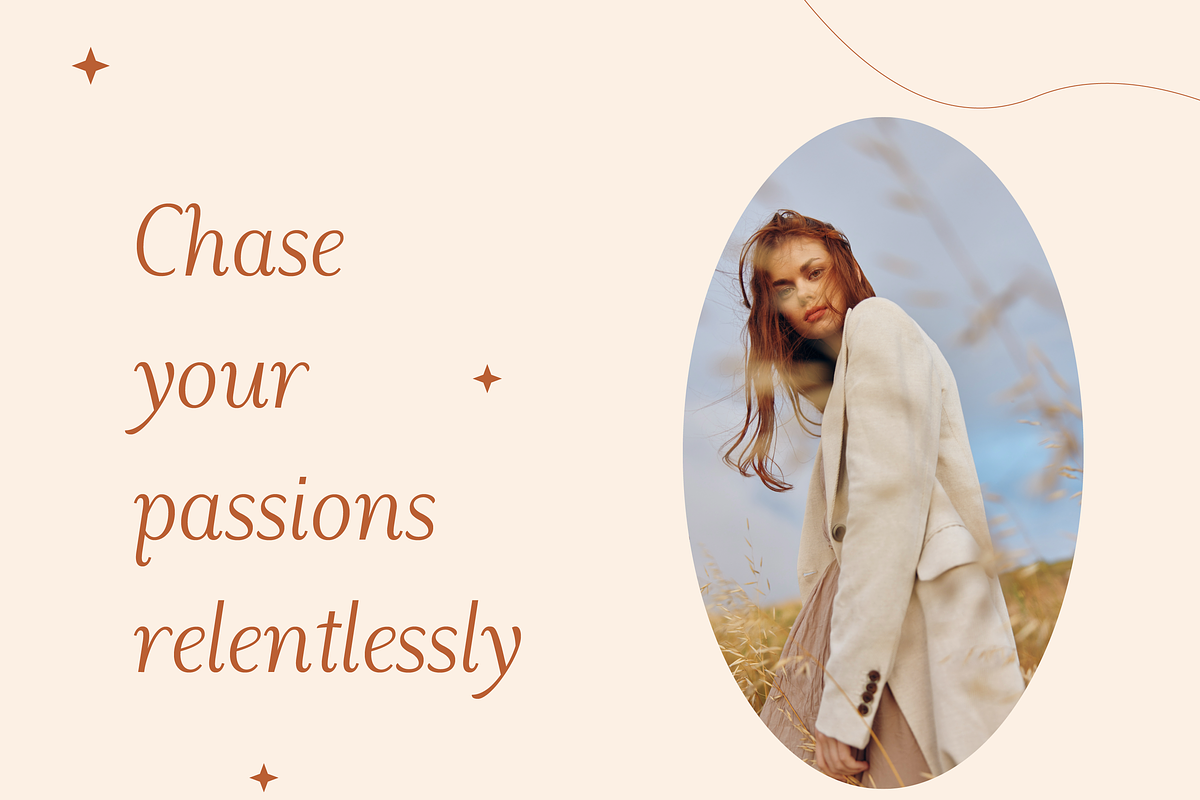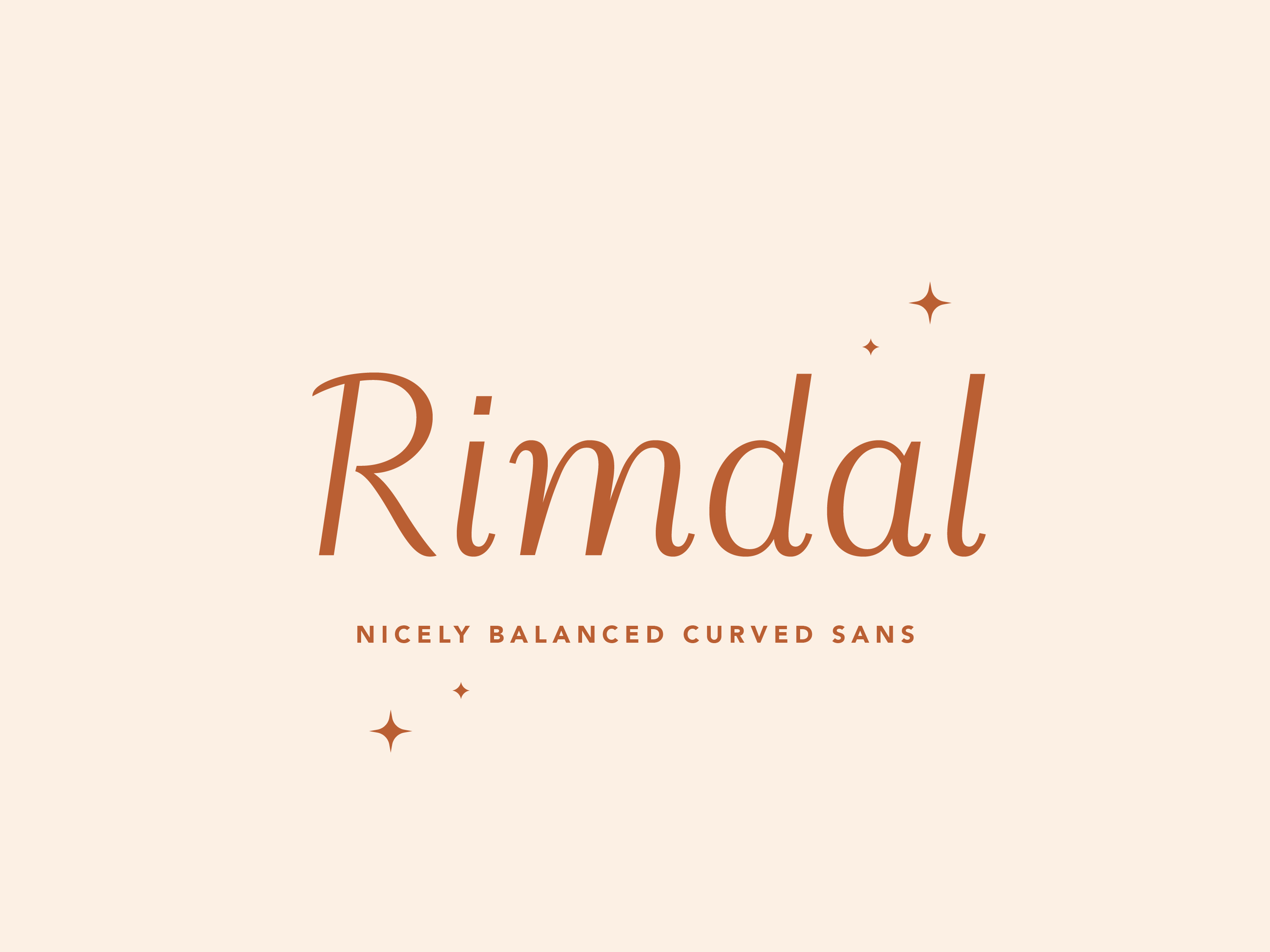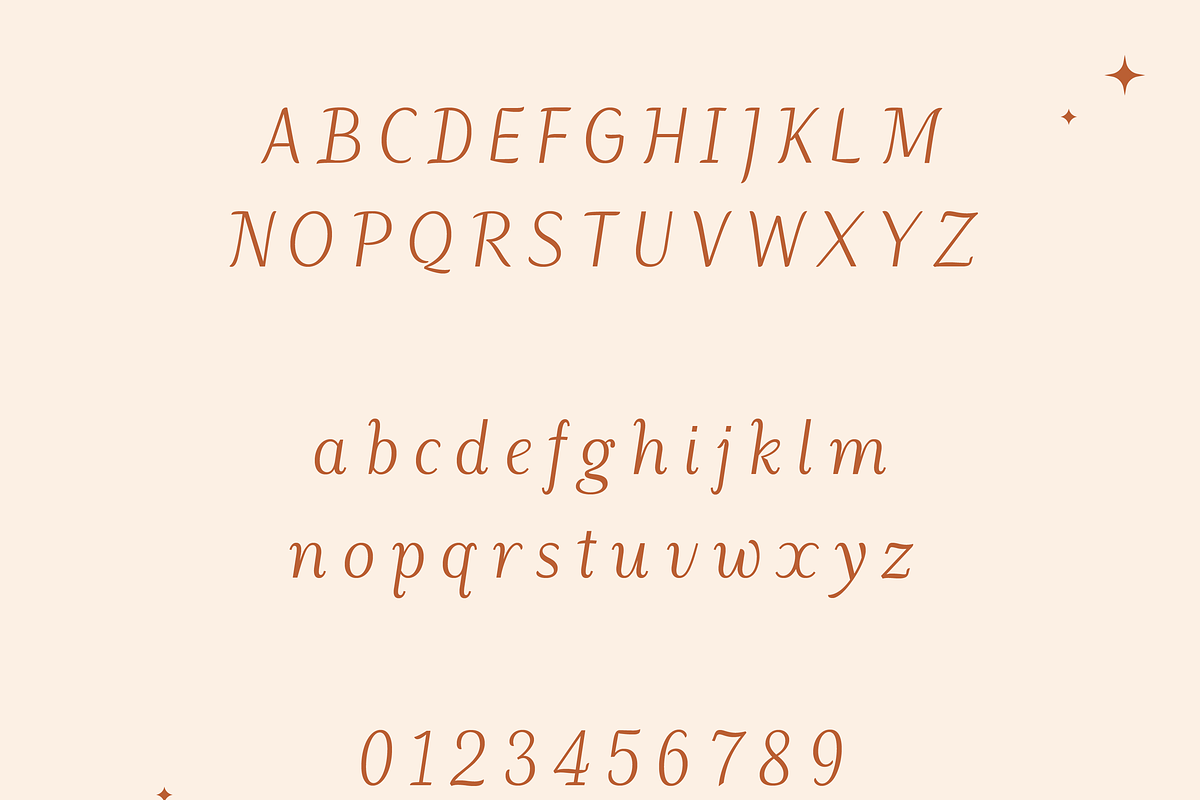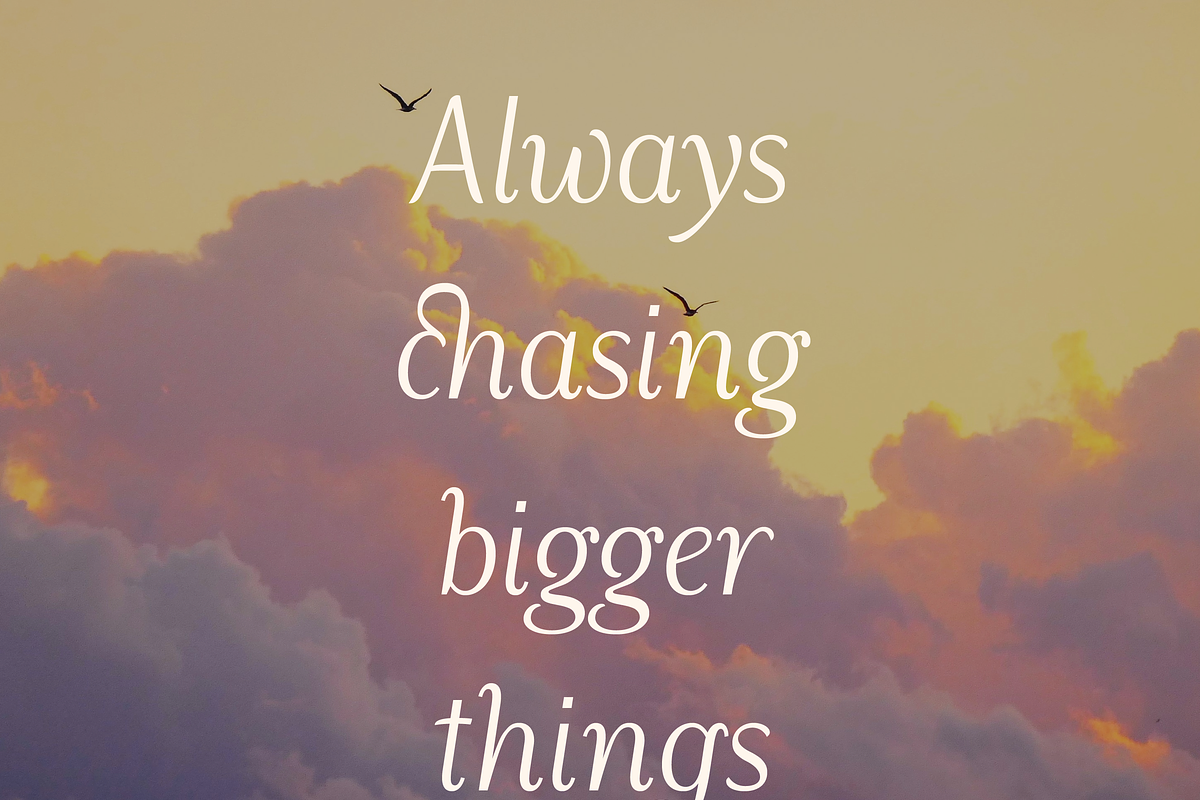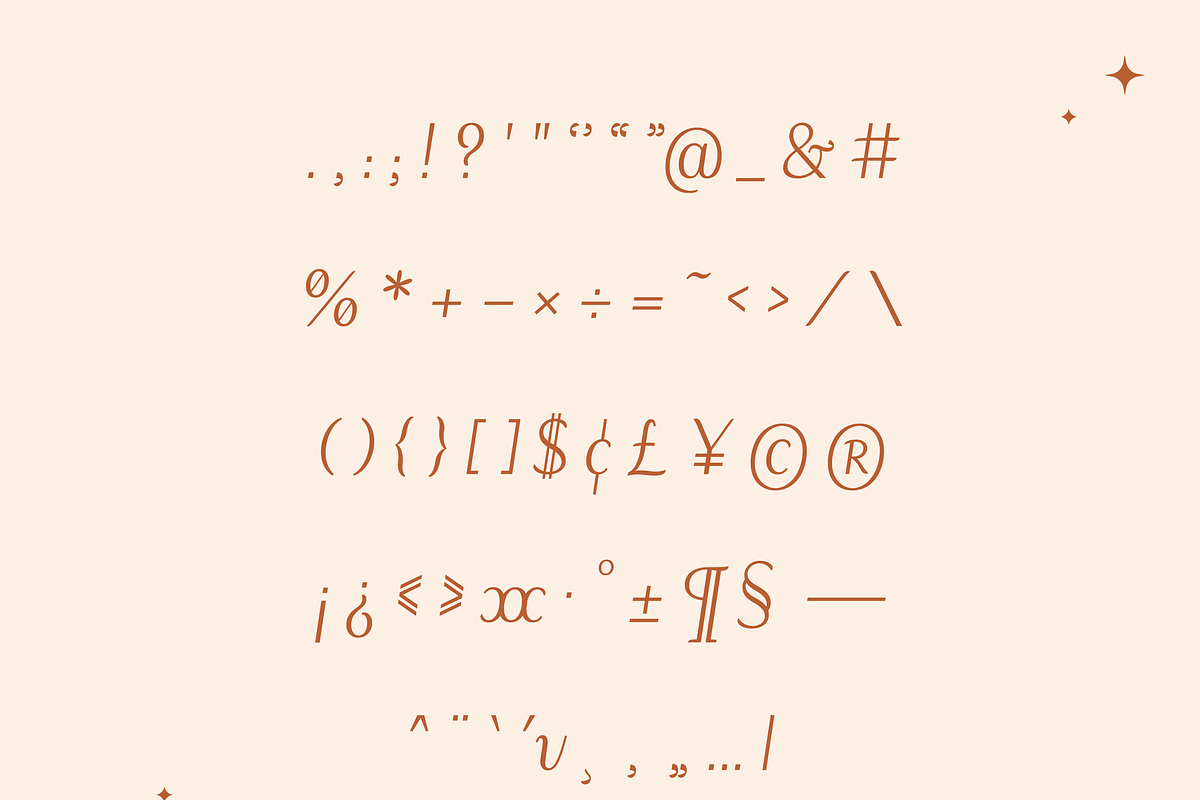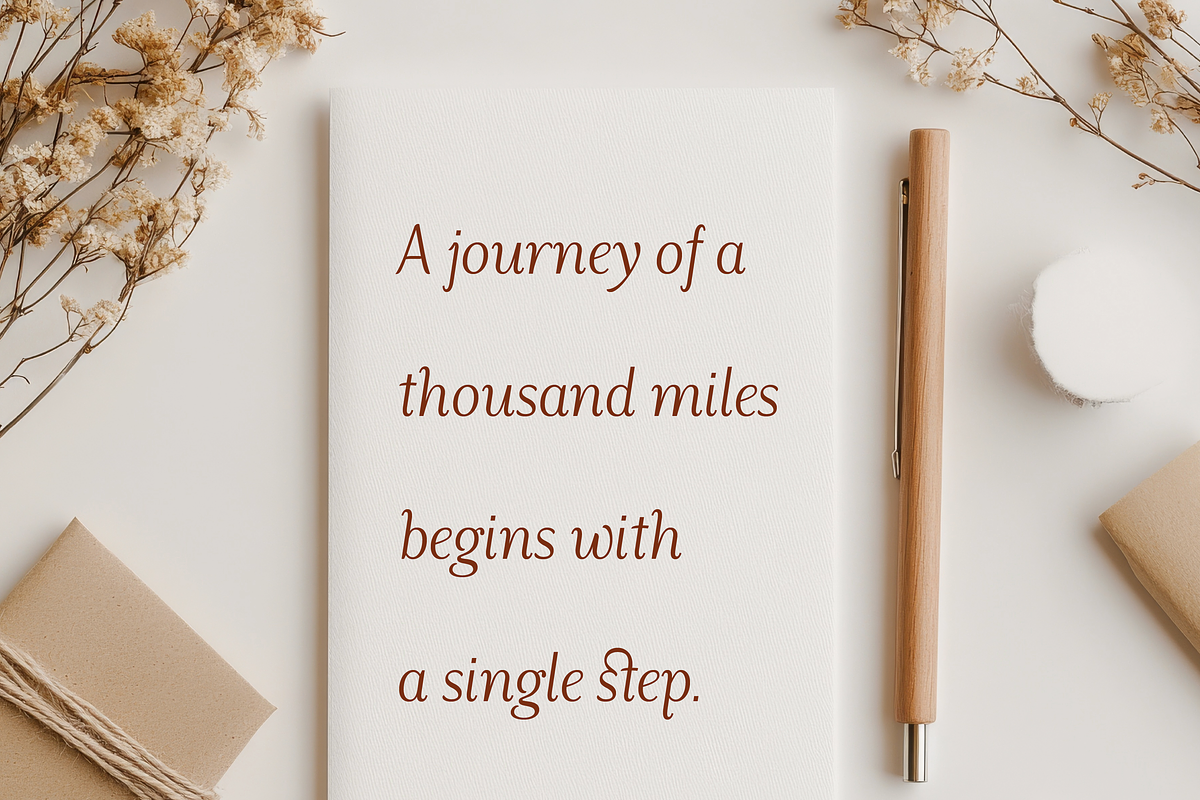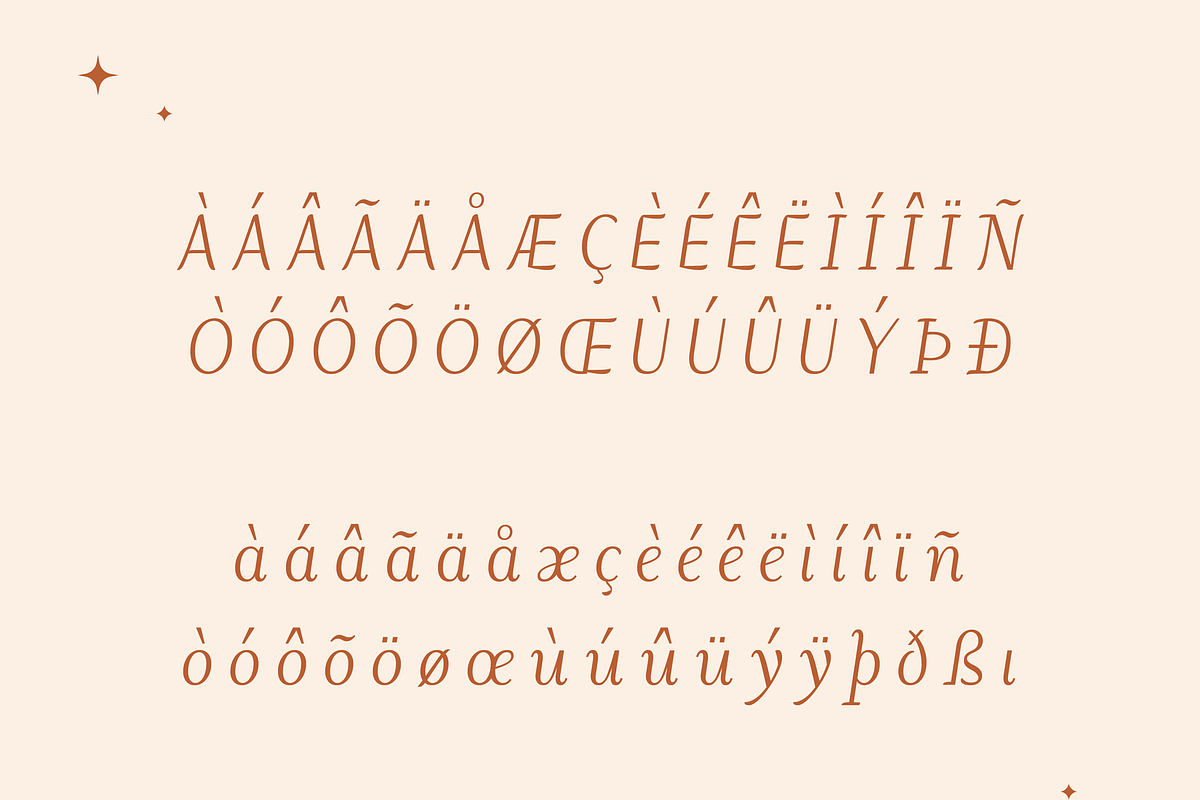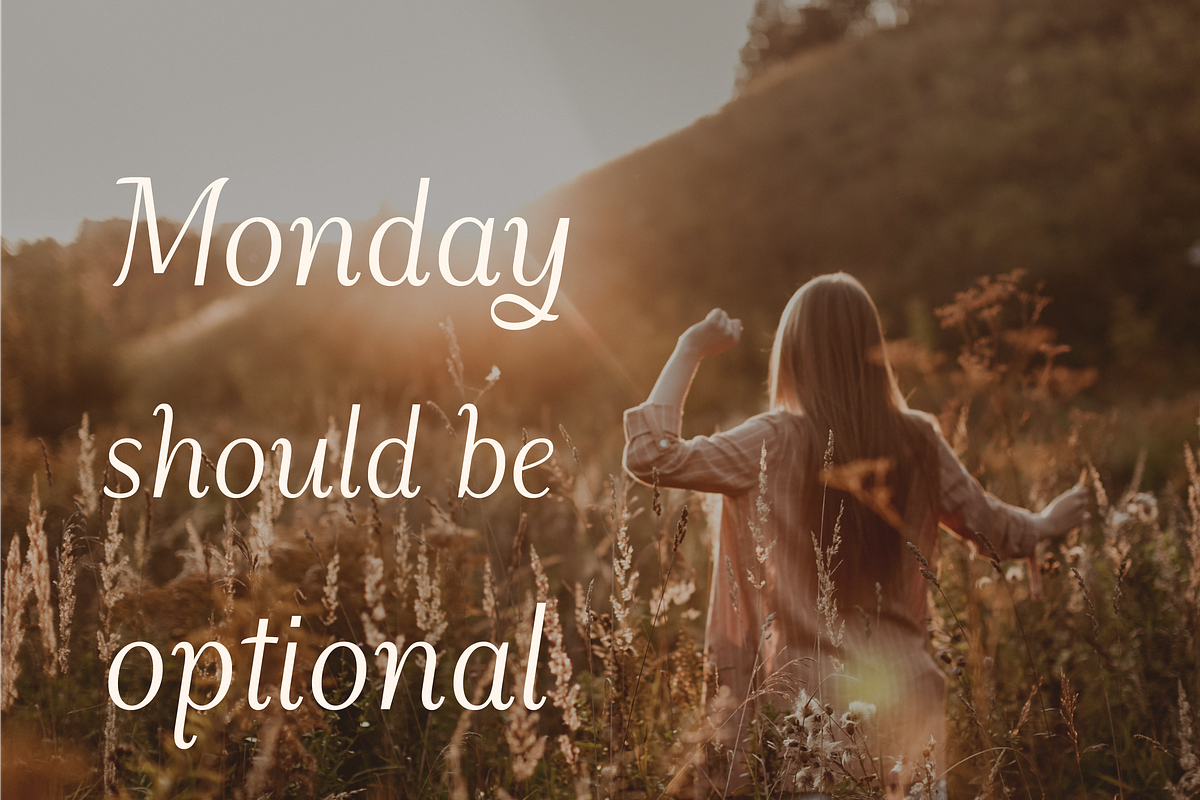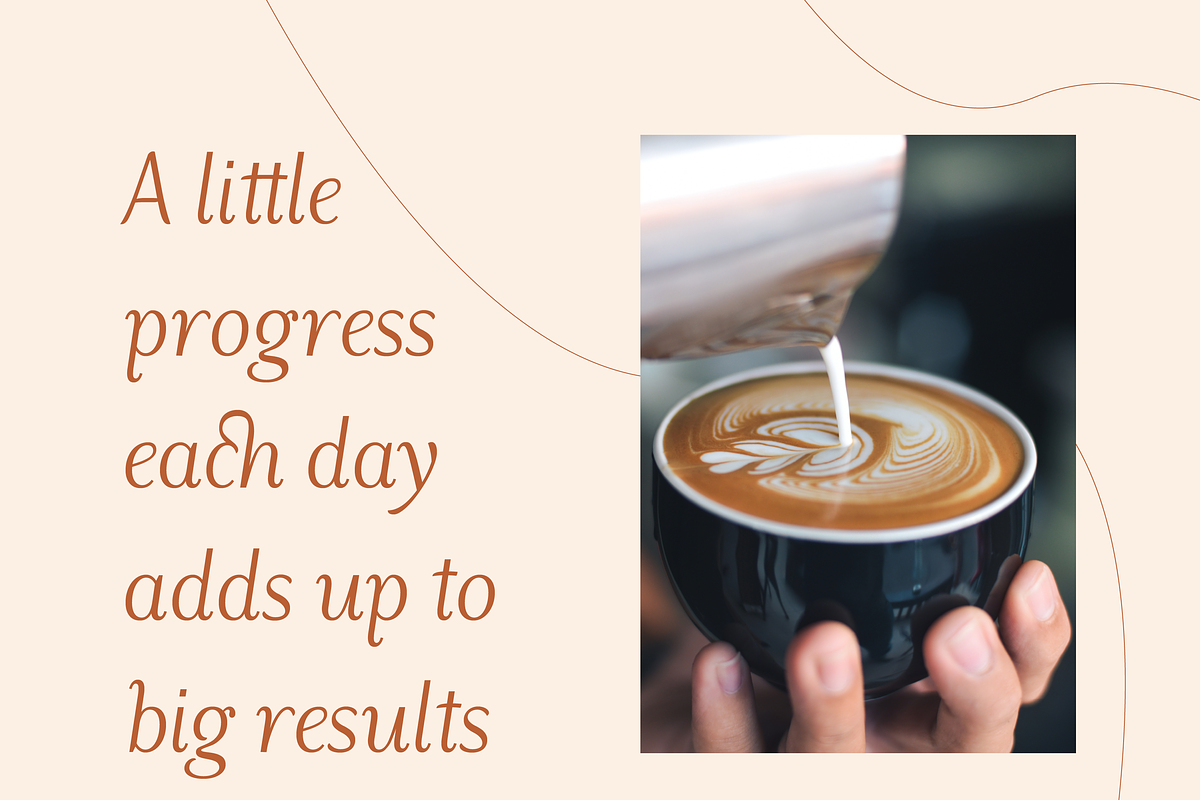
Rimdal Retro Sans Font
Rimdal – A Graceful and Versatile Calligraphy Typeface
Rimdal is a beautiful calligraphy typeface that blends sophisticated charm with versatile functionality. Its flowing, refined letterforms make it an ideal choice for advertising, packaging, branding, and editorial design, as well as for wedding invitations, menu cards, and web projects.